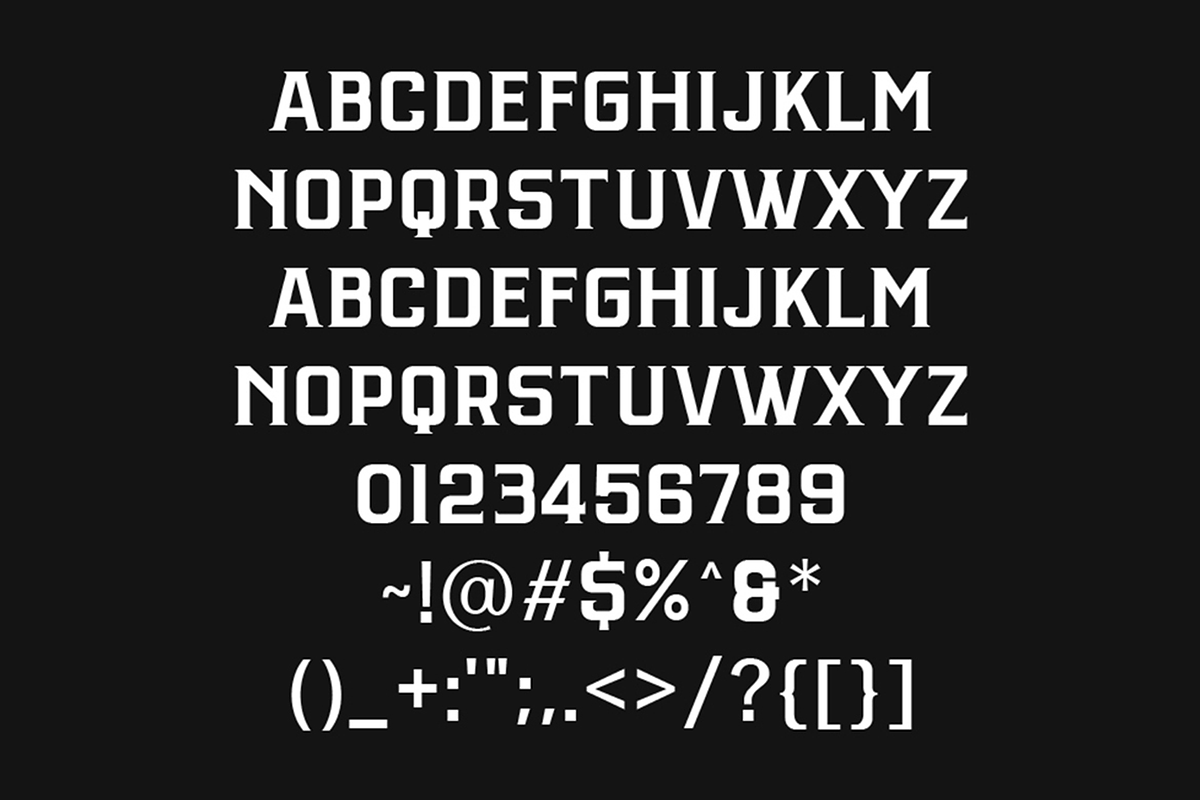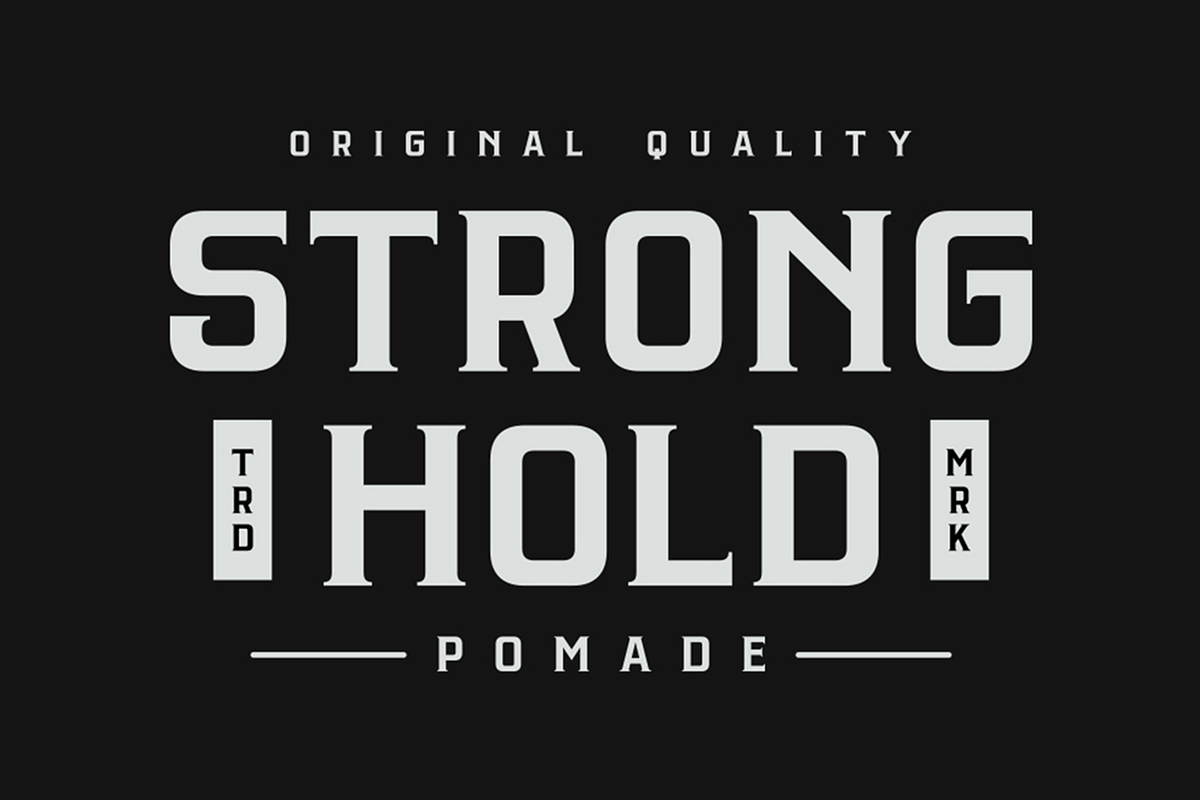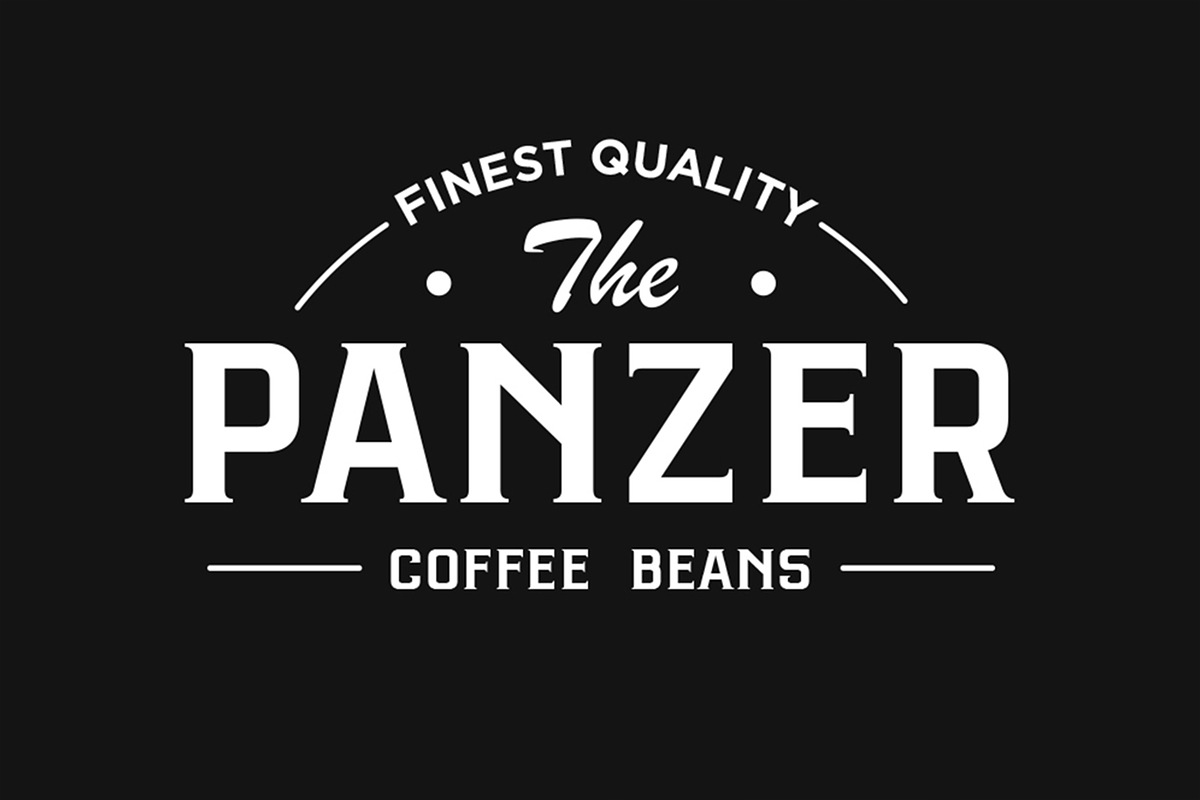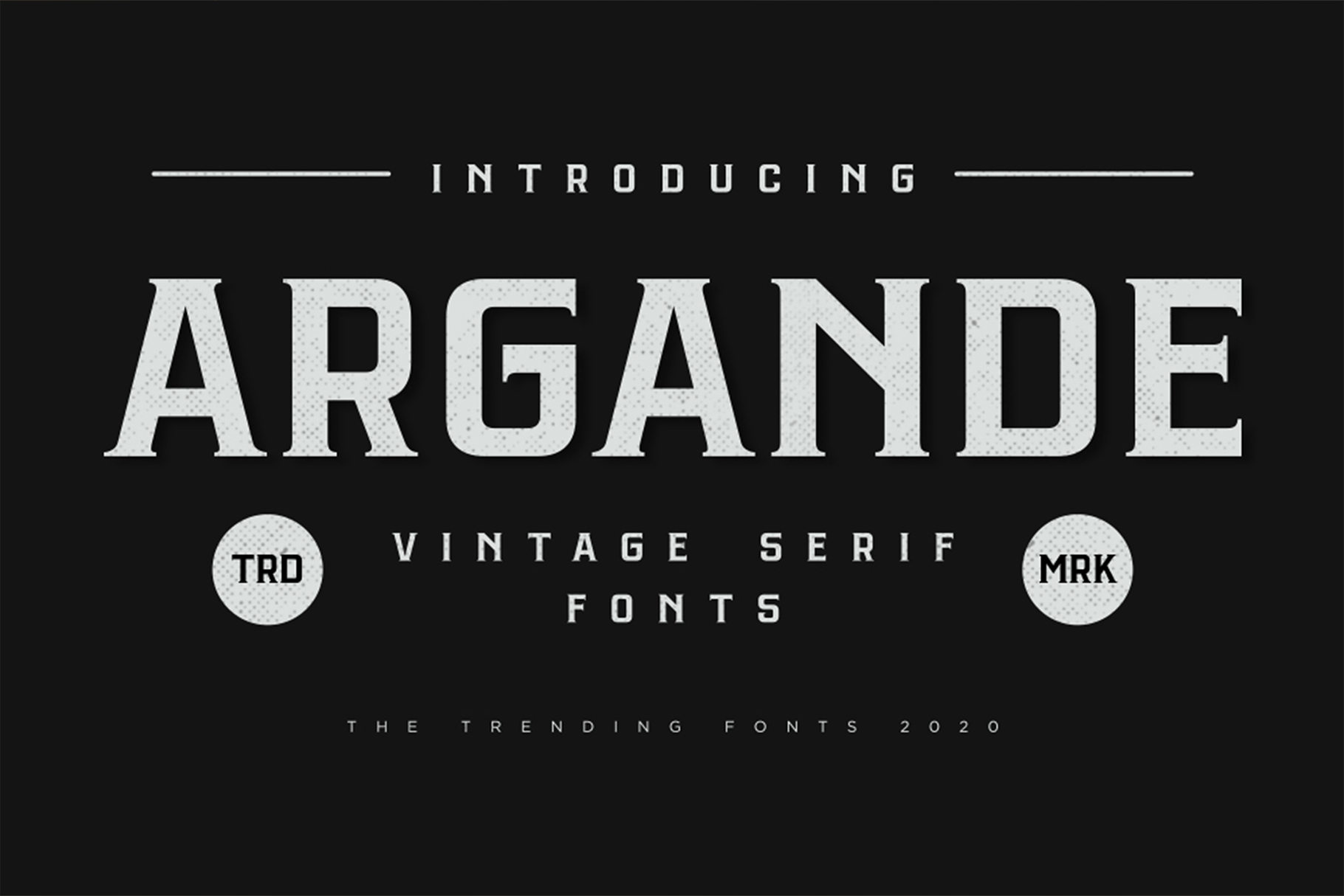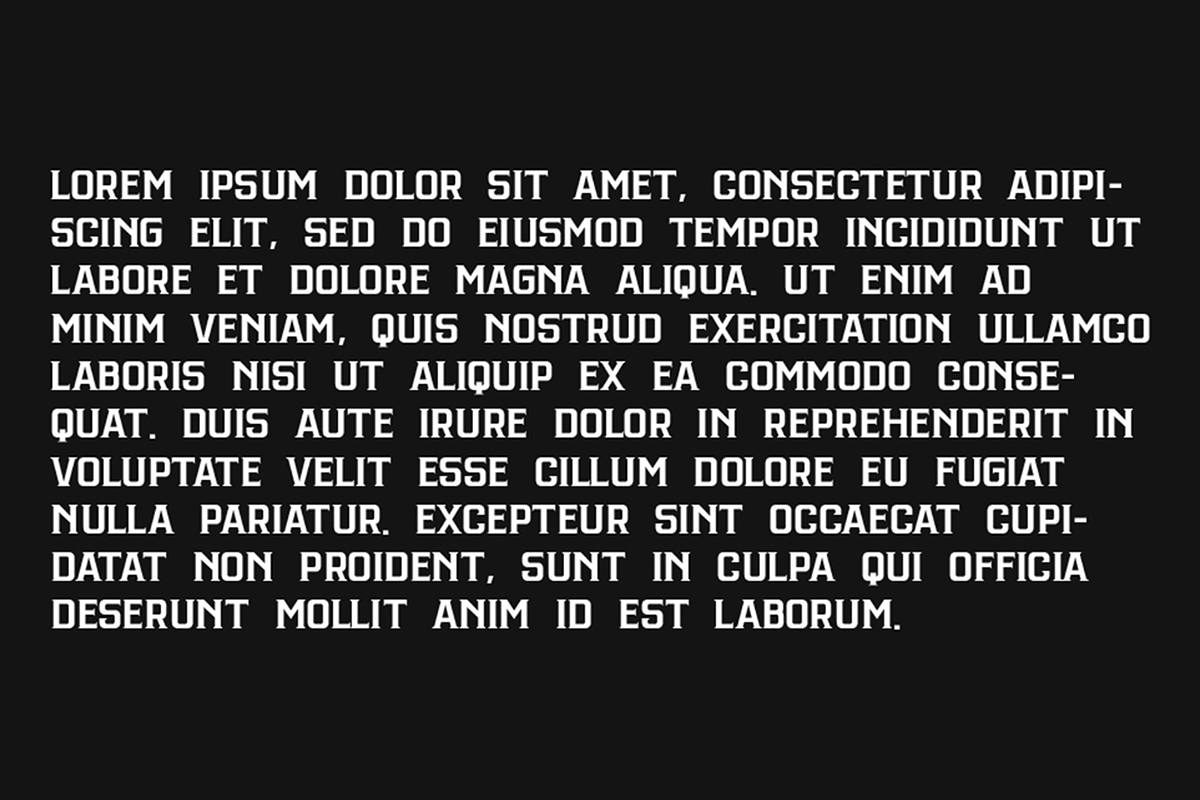
Argande - Vintage Serif Font
Classy yet elegant concept taken from the vintage era. The glory moment of sign and beer label in the old days. We present you, Argande font. A bold serif display font with square and bold vintage vibes. Perfectly fit for logo, branding, clothing, men’s product, poster, sign, badges design, label, etc.